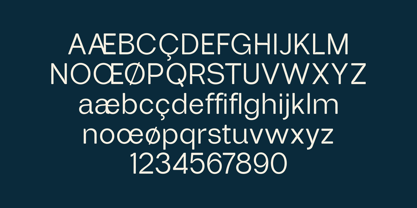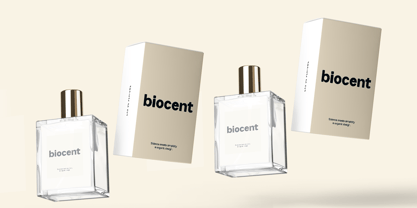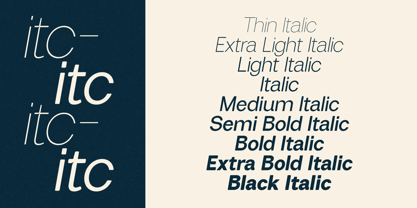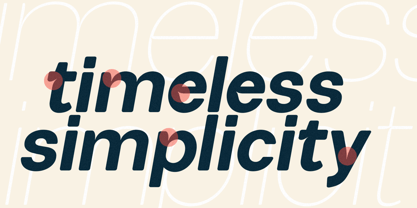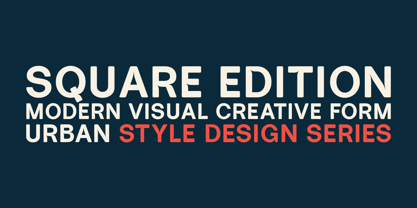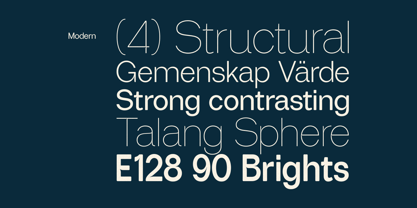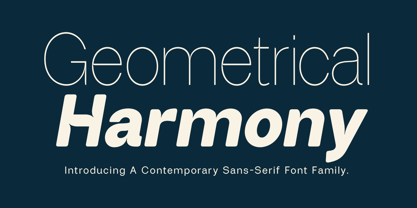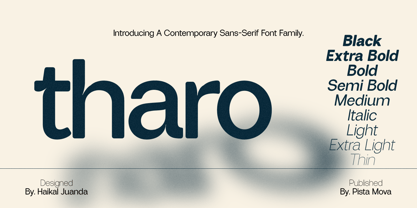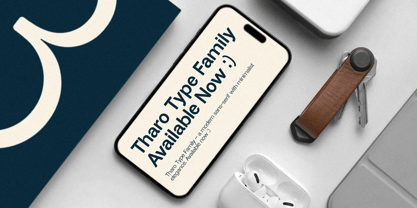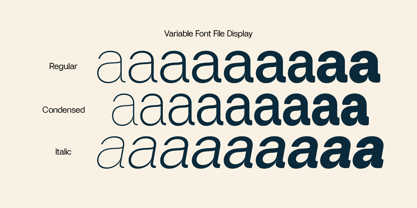
Tharo
by Pista Mova
The Tharo Font Family was designed by Haikal Juanda and published by Pista Mova. Tharo contains 27 styles and family package options.
Introducing the Tharo Font Family Experience timeless elegance with Tharo, a meticulously crafted sans typeface that blends modern charm with contemporary style. Its high-contrast strokes and graceful curves create a visual symphony that captivates the eye and enhances any design. Whether you're creating a sophisticated editorial layout, a striking brand identity, or an engaging website, Tharo's flexibility and refined beauty will make your work stand out, giving you incredible options for typographic hierarchy and dynamic designs. Immerse yourself in the world of Tharo Sans, where every character has been meticulously designed to maximize strength and refinement. From its meticulously sculpted sans to its perfectly balanced proportions, this typeface is a testament to the timeless power of modern typography. Its true italics, with their unique characters, add a touch of dynamic movement and visual interest, allowing you to create designs that are both captivating and easy to read. Key Features: Get incredible flexibility with Condensed, Regular, and Italic options, each with a full range of weight variations. Consummate Elegance: Tharo Sans's clean lines and balanced proportions exude modern charm, making it ideal for a wide range of applications. OpenType Features: Take complete control of your typography with advanced OpenType features. Multilingual Support: With support for over 90 languages, Tharo Sans ensures your message reaches a global audience. True Italic: Tharo Sans Italic is more than just italics in a regular font. Tharo Sans is carefully designed to complement upright characters and create a harmonious visual flow. Perfect for: Editorial Design: Magazines, newspapers, books — Tharo Sans's legitimacy and elegance make it perfect for long-form text. Branding & Logos: Create a sophisticated and memorable brand identity with the timeless appeal of Tharo Sans. Web Design: Tharo Sans' clean lines and high contrast ensure optimal readability on screens of all sizes. Packaging & Print: Enhance your product packaging and printed materials with a touch of sophisticated luxury. Stationery: Create a lasting impression with Tharo Sans' elegant presence on invitations, greeting cards, and other stationery. Files you'll receive from Tharo: Tharo Condensed Family Tharo Regular Family Tharo Italic Family Experience the difference with Tharo, which combines elegance with flexibility. Download today and unlock a world of typography. Happy creating, everyone!